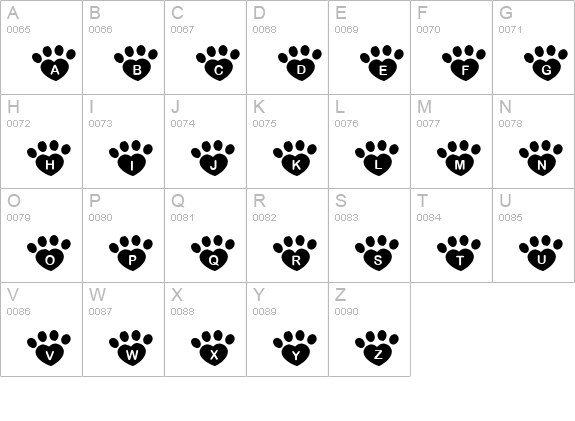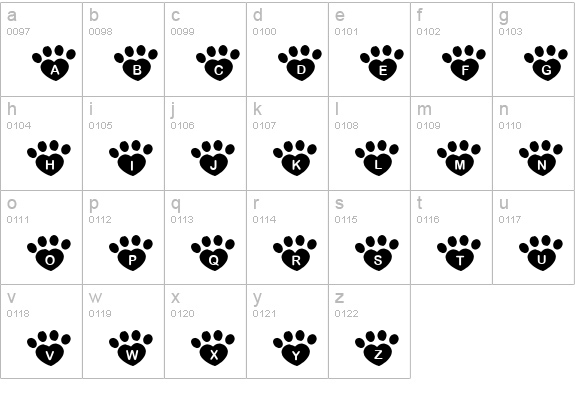
Introducing the JLR Pawrty Hearty font, a whimsical and playful typeface that is sure to bring a burst of energy to any design project. With its unique and quirky letterforms, this font exudes a sense of fun and celebration, making it the perfect choice for any party-themed design, from invitations to banners and everything in between. But what sets JLR Pawrty Hearty font apart from the rest is its versatility and accessibility. Not only does it offer a wide range of characters and ligatures to enhance your designs, but it also comes with a special feature - it's absolutely free! That's right, this font is freely available to download at FontsMarket.com, allowing you to add a touch of joy to your creations without breaking the bank. Whether you're designing for a children's birthday party, a festive event, or simply want to inject some cheer into your designs, JLR Pawrty Hearty font will not disappoint. Its lively and animated appearance will instantly grab attention and create a sense of excitement. Every letter is carefully crafted to bring a sense of playfulness and joy, ensuring that your designs stand out from the crowd. So, why wait? Download the JLR Pawrty Hearty font today from FontsMarket.com and let your creativity soar. Whether you're a professional designer or simply someone who loves to add a personal touch to their projects, this font is sure to become your go-to choice for all things fun and festive. Get ready to party with JLR Pawrty Hearty font and spread the joy with every design you create!